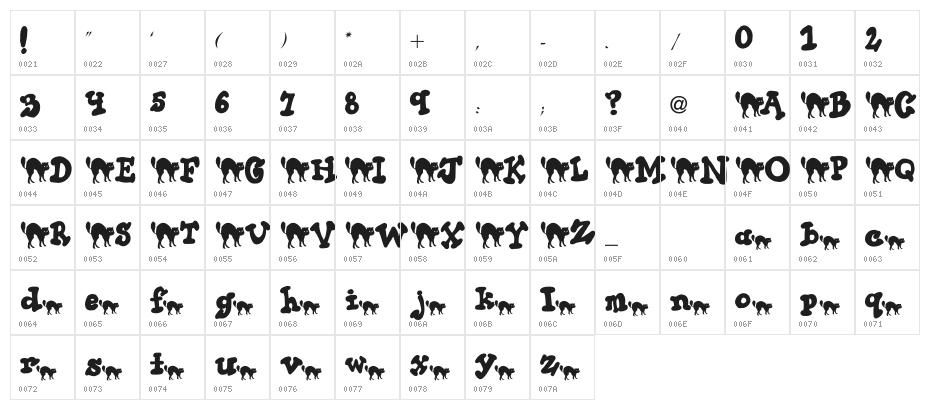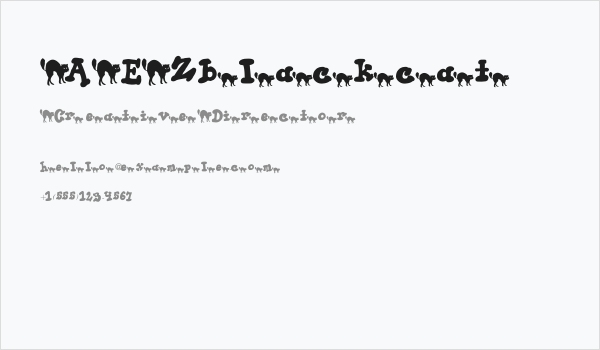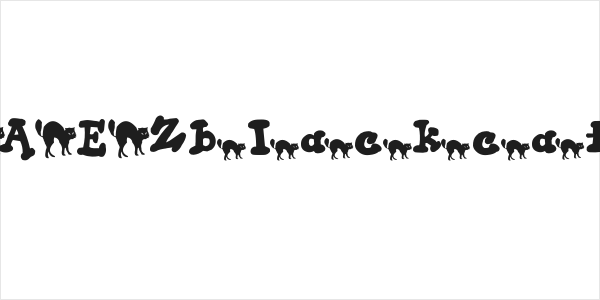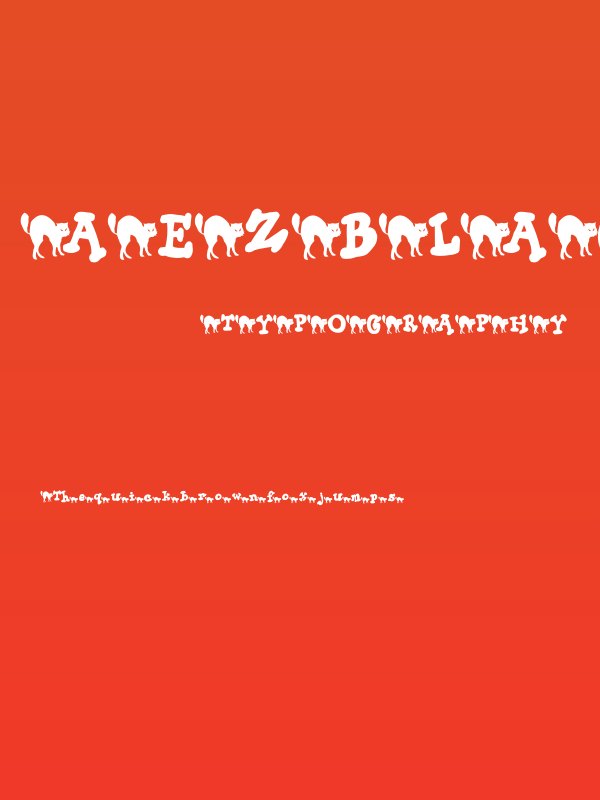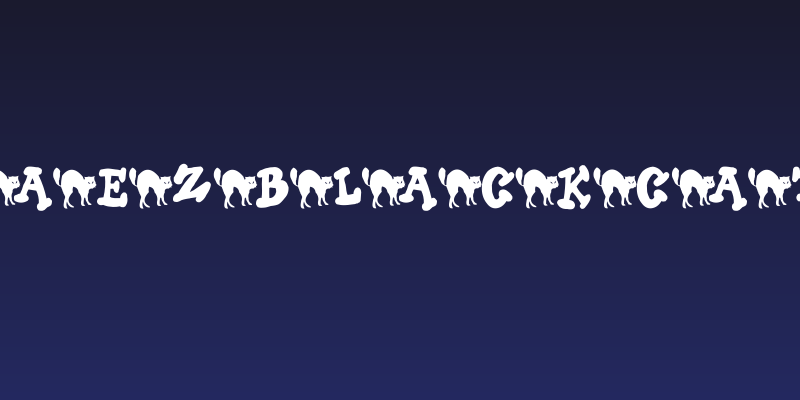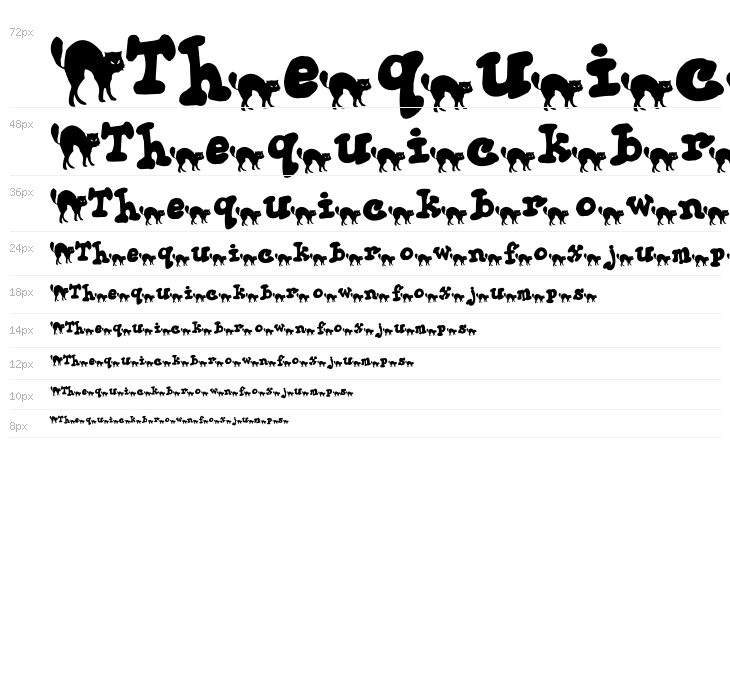
AEZ black cat Font
| Caso de uso | Headlines, Logos, Themed Invitations |
| Proyectos propuestos | Ideal for Halloween-themed designs, children's books, pet-related branding, or playful invitations. |